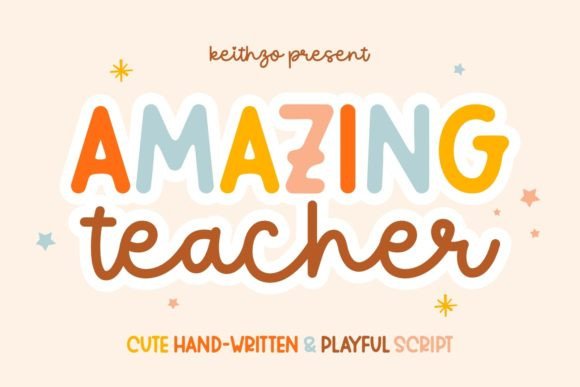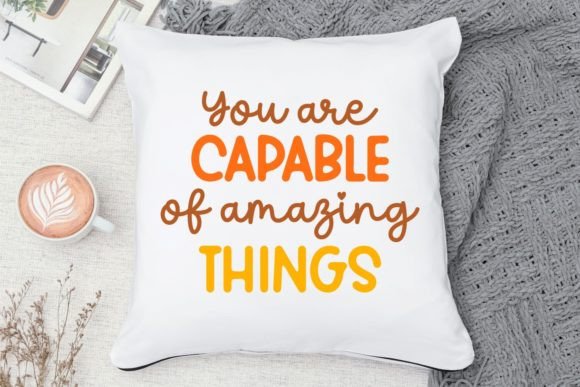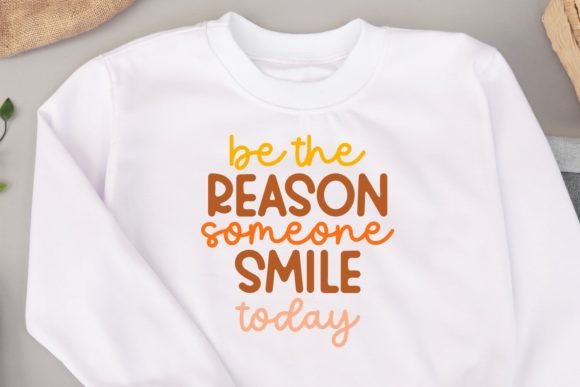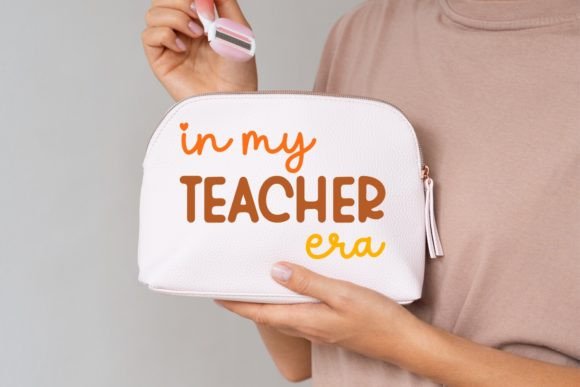
Amazing Teacher Font
About the Amazing Teacher Font
Crafted with precision, the Amazing Teacher Font is ready to bring your ideas to life. Unleash the charm of schoolroom nostalgia with Amazing Teacher, a font that encapsulates the essence of a teacher’s handwriting. Breathe joy into your designs as this font oozes warmth and cheerfulness, making it a perfect fit for a gamut of applications. With its robust and distinctive personality, Amazing Teacher stamps its mark on everything from t-shirts to greeting cards, blog headlines to birthday gifts. Embellish accessories like hats, bags, or even your memo boards with this delightful font.
Its presence doesn’t just stop at personal use; it spills into corporate spaces too, elevating the look and feel of branding efforts, logos and social media graphics. Think throw pillows or coffee mugs, Amazing Teacher swirls fantastically across such items, offering a unique twist.
The font also stands as a darling in the crafters’ community, particularly among Cricut and Sublim appliance users. With Amazing Teacher, you aren’t just picking a font, you’re embracing a freestyle tool that lets you express imagination without any boundaries.
Amazing Teacher Font Usage Examples
Amazing Teacher Font Example